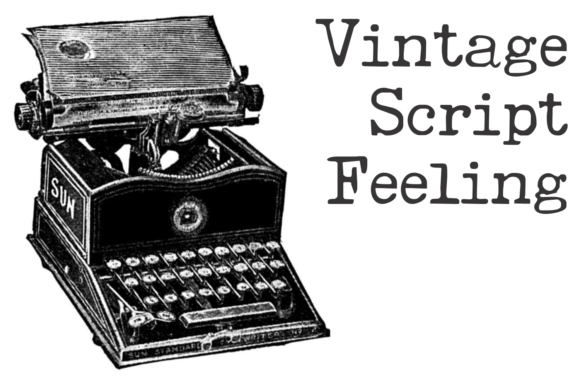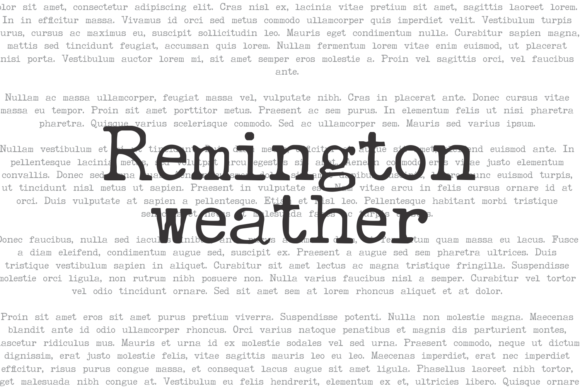
Remington Weather Font
About the Remington Weather Font
The wait is over! The incredible Remington Weather Font is now available for your design toolkit. Remington Weather is a distressed typewriter font, great for mimicking the distressed and sloppy ink effect of older typewriting machines. This display font will add some edge to your projects!
Remington Weather excels in headlines, posters, and short impactful statements where its grungy texture adds visual interest. It’s ideal for projects with a vintage, rebellious, or slightly edgy aesthetic, such as branding for a motorcycle club, a gritty coffee shop, or a rock band. Avoid using it for body text or lengthy paragraphs; the distressed effect can quickly become overwhelming and hinder readability.
Pairing Remington Weather with a clean sans-serif like Helvetica Neue for supporting text creates a strong contrast, balancing the font’s roughness with a sense of order. For a more vintage feel, consider pairing it with a classic serif like Garamond or a slightly more playful script font.
The font’s core personality is bold and rebellious, conveying a sense of grit and authenticity. Its distressed quality is best utilized in applications where this visual texture enhances rather than detracts from the overall message.
Remington Weather Font Usage Examples
Remington Weather Font Example